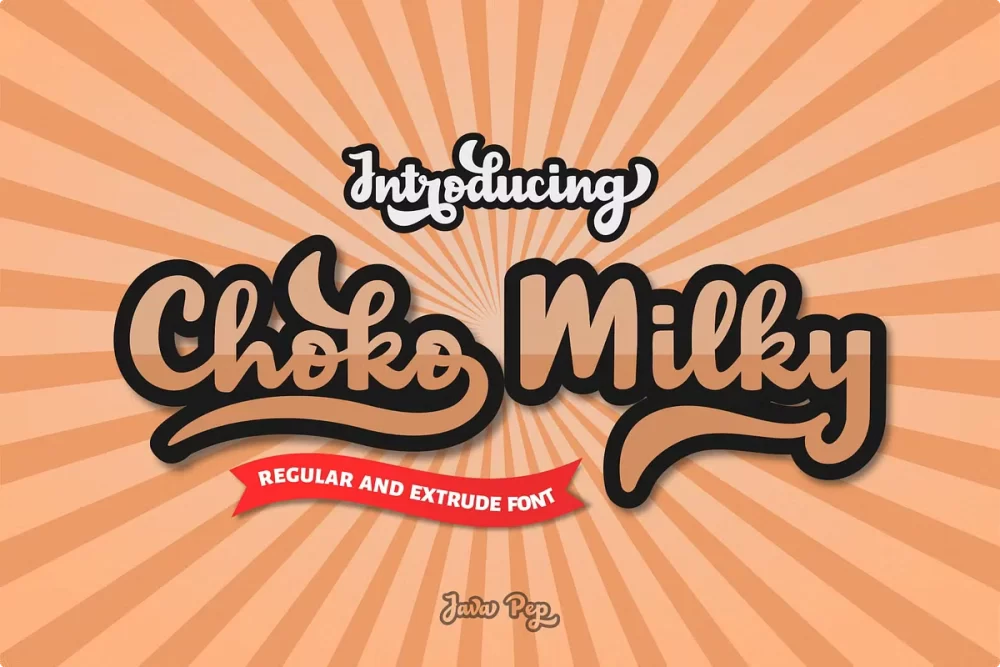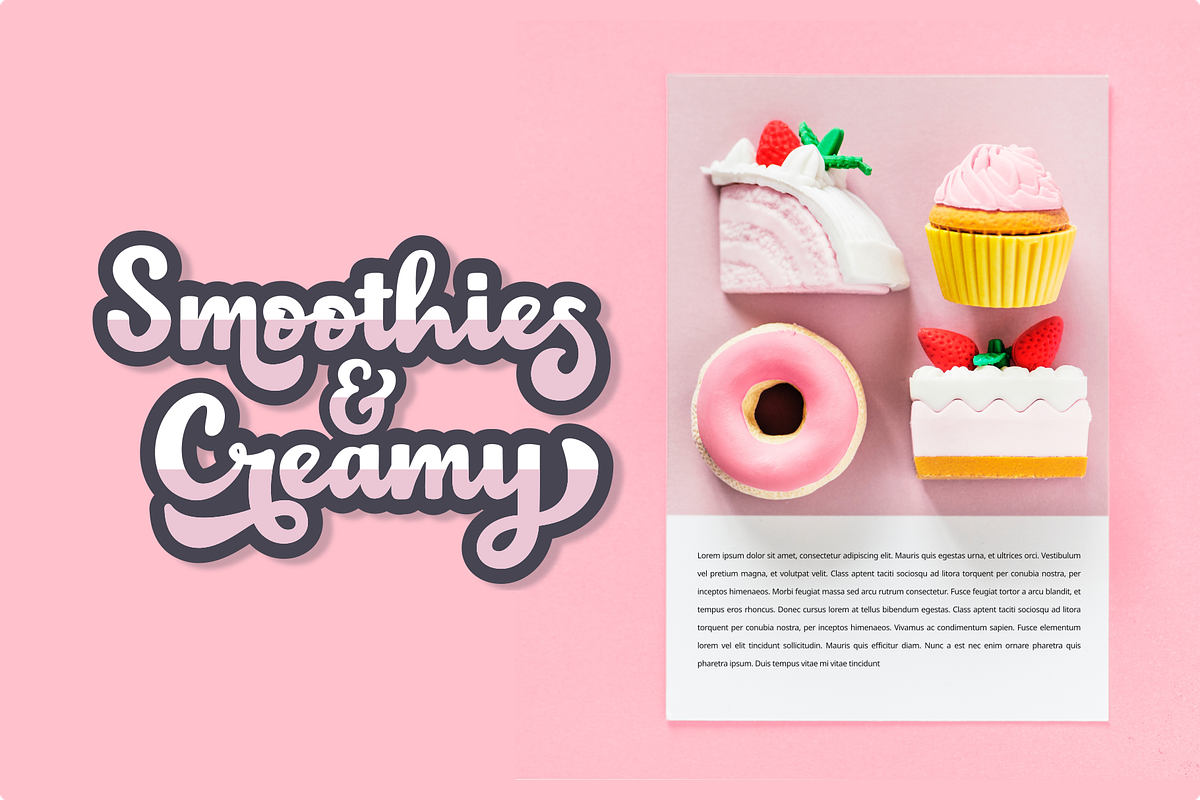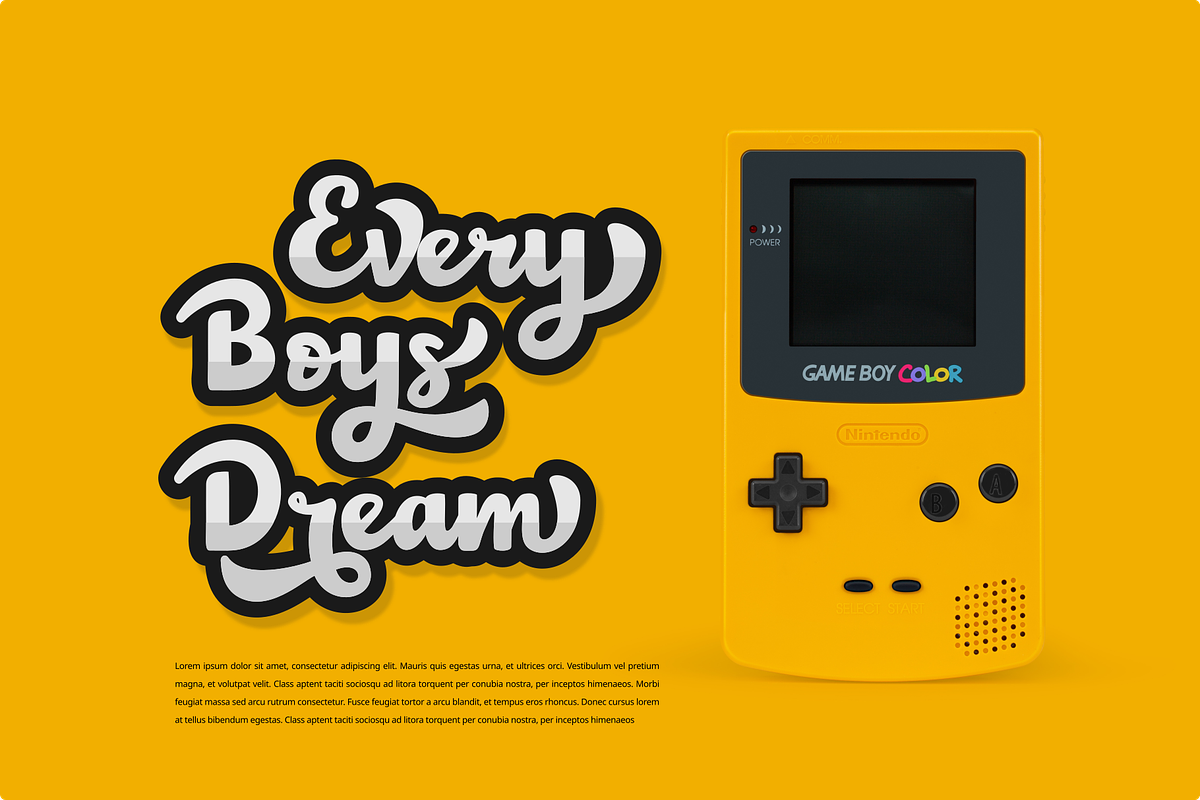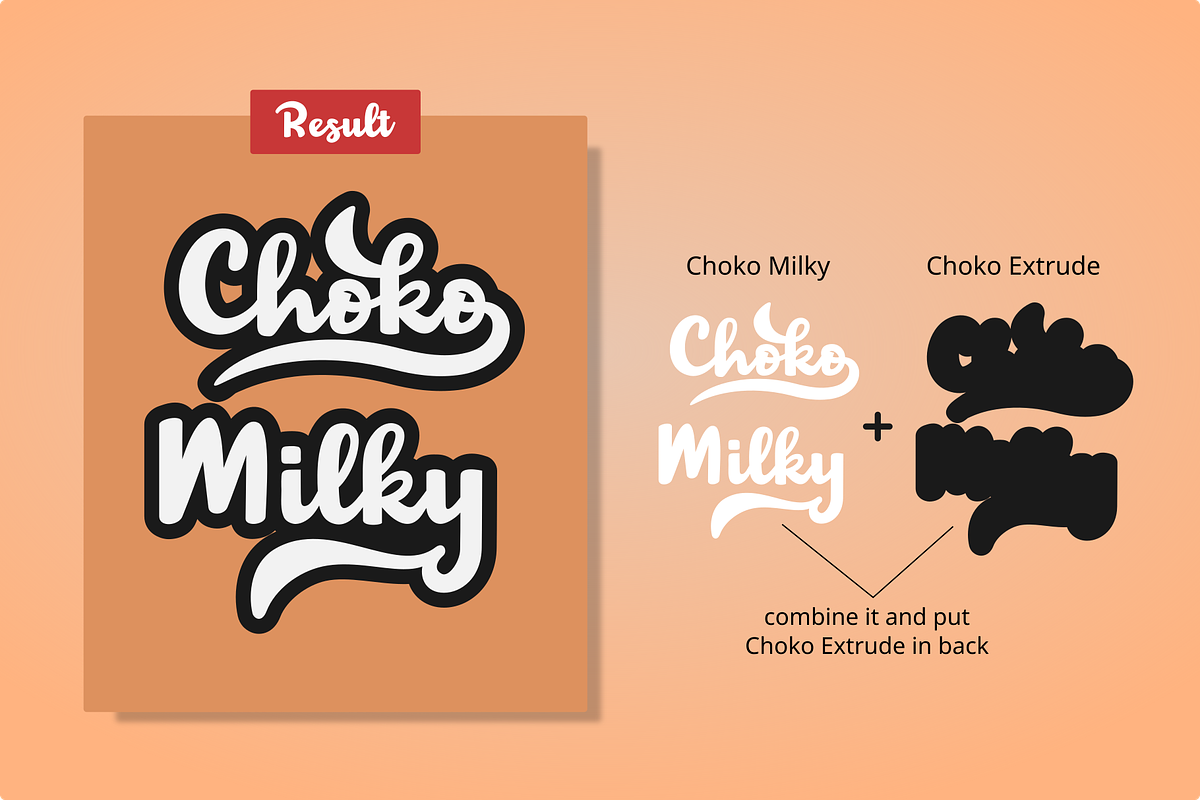
Choko Milky is a fun and bold font. This font included an extruding font to combinate with the regular font to make the Choko Milky more stand out the looks. Choko Milky is OpenType features such swash, terminal form, and stylistic set s01-s02.